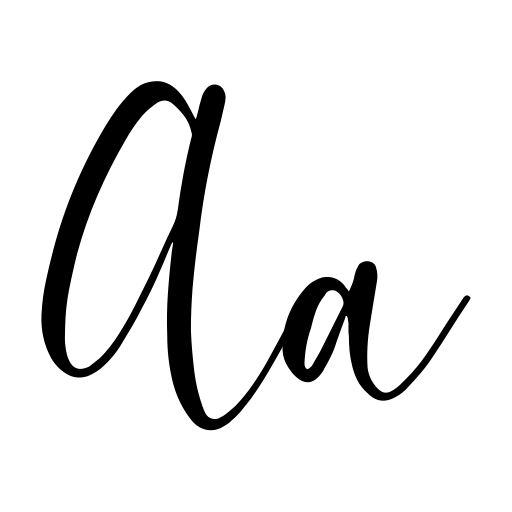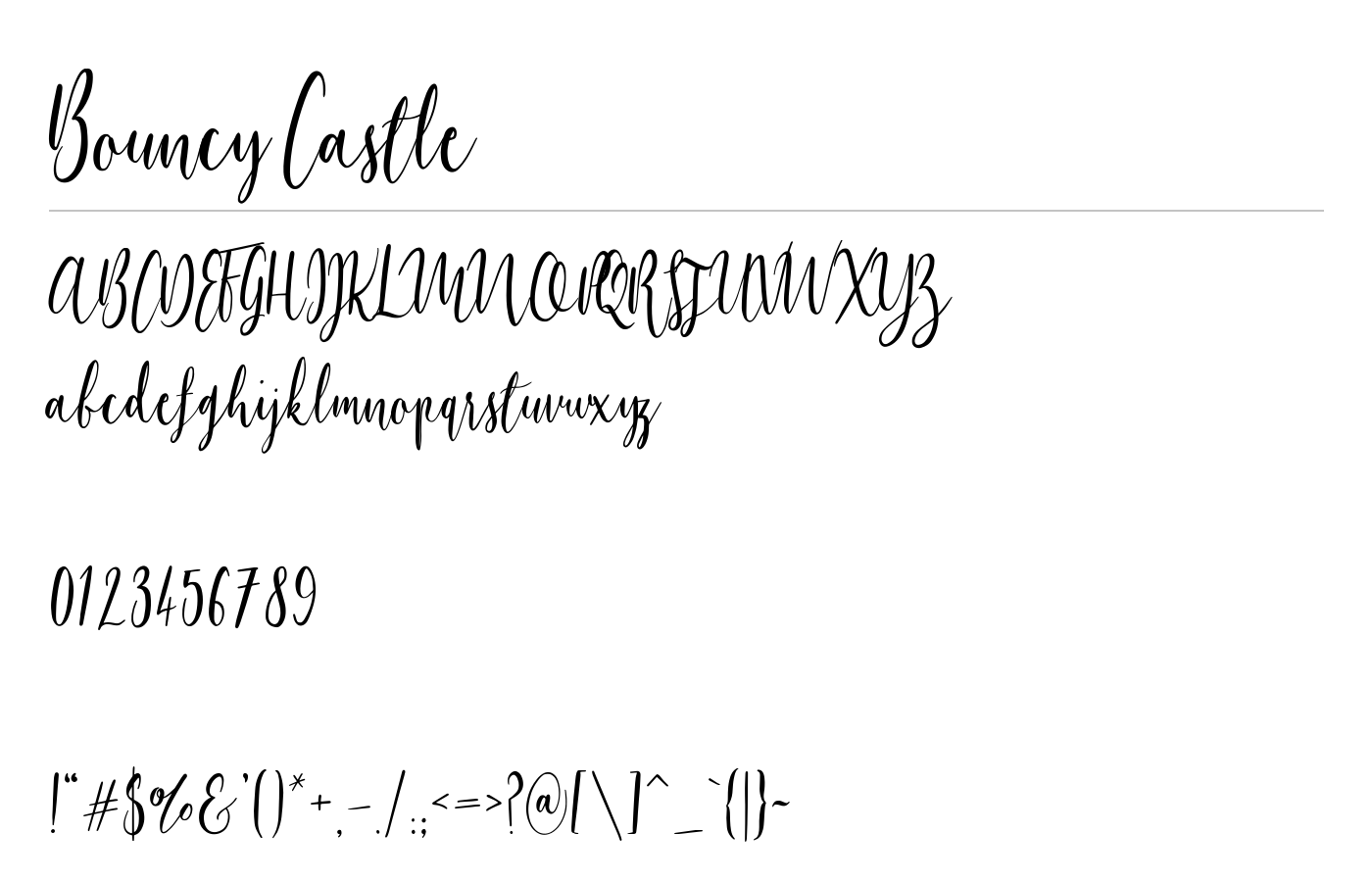
Bouncy Castle is a playful and elegant script font characterized by its tall, slender letterforms and smooth, flowing strokes that mimic natural handwriting. Its high contrast and slightly casual, handwritten feel make it ideal for invitations, branding, and creative projects where a personal, stylish touch is desired without sacrificing readability. This font works beautifully in headlines and logos, especially for fashion, beauty, and lifestyle designs looking to convey sophistication with a friendly, approachable vibe.
Bouncy Castle Font